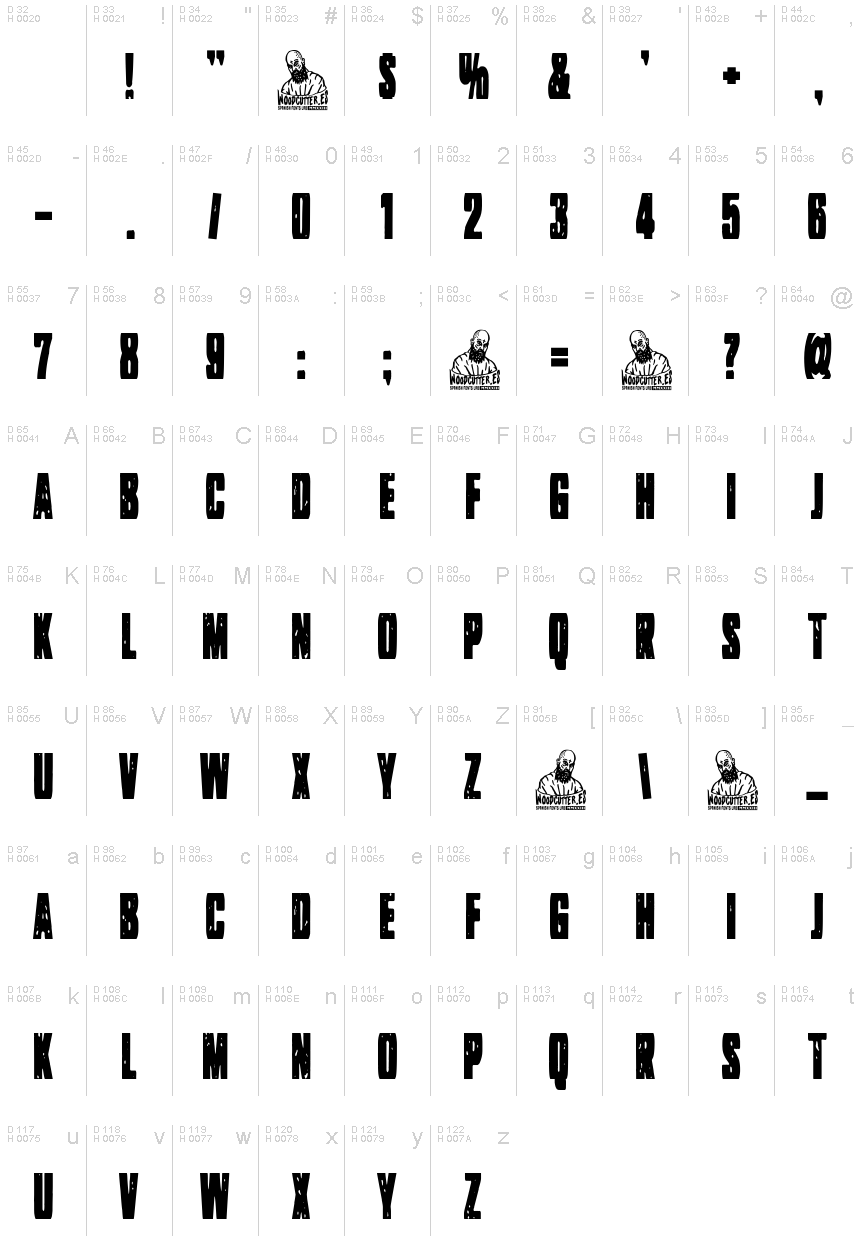
Zarzaparrilla
Zarzaparrilla font by Woodcutter is a condensed display typeface with an eroded style, bold weight, and a vintage-inspired look. Uneven textures and distressed surfaces give the letters of this dense solid font at hand a unique appearance that will without doubt draw attention. Moreover, as each glyph looks authentic and vivid in itself, the whole character set can score effortless success when put together into a paragraph.
As many occasions for use can exist, the free font should find its way to posters, album covers, books covers or inner pages headings. Logos or labels would be another suitable platform whereby impressive results can be achieved alongside business cards and magazine layouts. Additionally expanding its use into website design elements such as titles could open new horizons worth exploring.